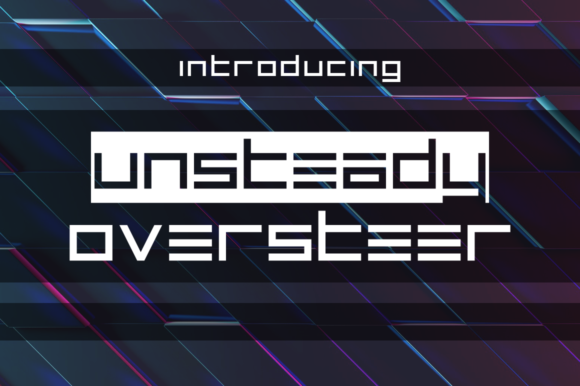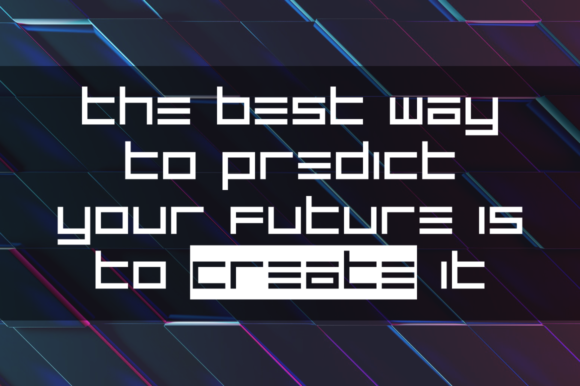
HomePersonal Use FreeUnsteady Overseer Personal Use Free Unsteady Overseer FacebookXPinterestWhatsApp 1 of 2 About Unsteady Overseer Font Unsteady Overseer is an eclectic futuristic font, perfect for use in a wide range of project types. This free font was crafted with precision by the talent at Typodermic. DOWNLOAD NOW People also explored Equajos Font Bhuron Font Chocolate Story Font Belives Font Starnight Font Hello Famous Font Leighton Font Nadela Font Beautifly Font 416 0 TagsUnsteady Overseer Font Previous articleHitersNext articleStentiga LEAVE A REPLY Cancel reply Comment: Please enter your comment! Name:* Please enter your name here Email:* You have entered an incorrect email address! Please enter your email address here Website: Save my name, email, and website in this browser for the next time I comment. Personal Use Free BD Spinner Personal Use Free Read more about this font Heart Personal Use Free Read more about this font Setta Personal Use Free Read more about this font Goodline Font Personal Use Free Read more about this font BLOG Free Fonts Risk: Why Free Fonts Can Be Dangerous for Designers Free Fonts Risk: Why Free Fonts Can Be Dangerous for Designers Using free fonts is a common practice in web and graphic design. However, the... Free vs Paid Fonts: Why Investing in Premium Fonts Is Worth It Best Fonts for T-Shirt Design – Top 2025 Picks Transform Your Website: Elevate Your Typography with 7 Best Web Font Generators